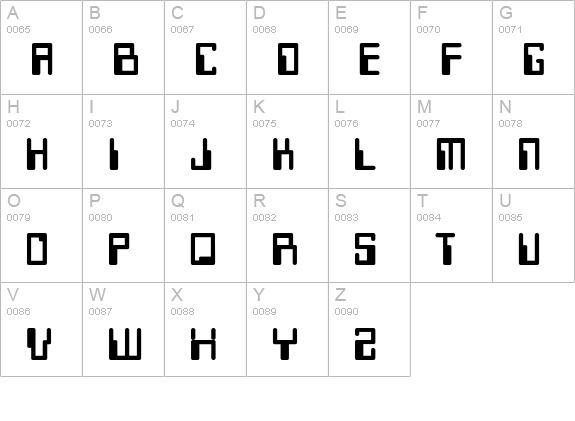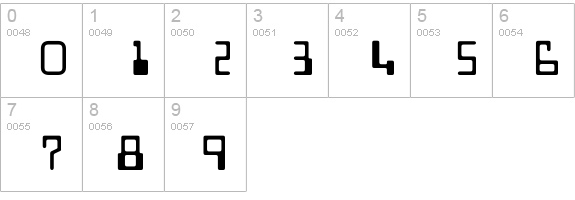
CheckStub Font Details
CheckStub font is a modern and stylish typeface that combines elegance with readability. Its sleek lines and clean design make it perfect for a variety of projects, from business documents to creative designs. This versatile font is ideal for both print and digital use, adding a touch of sophistication to any text. The best part? CheckStub font is completely free to download at FontsMarket.com. You can easily access this high-quality font and enhance your projects without breaking the bank. Don't miss out on the opportunity to elevate your designs with this premium font that won't cost you a penny. Download CheckStub font today and start creating stunning visuals with ease.